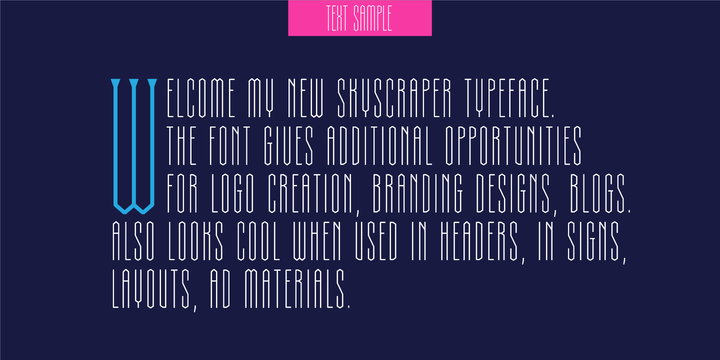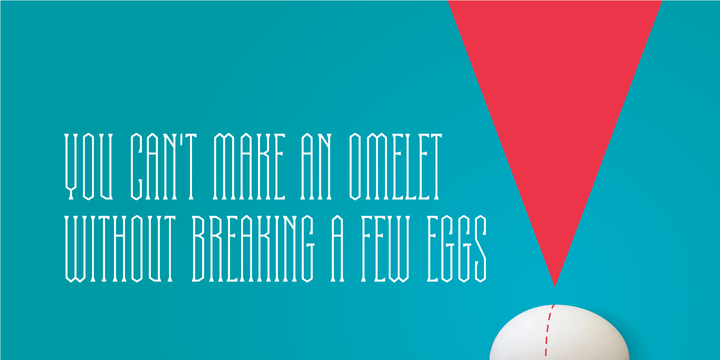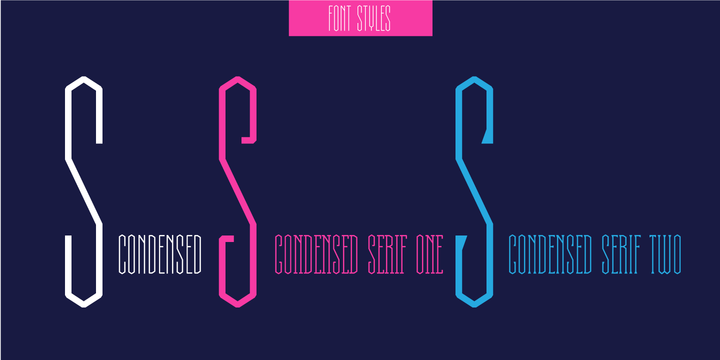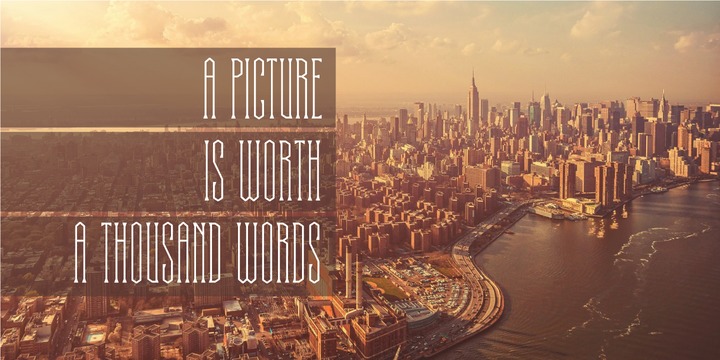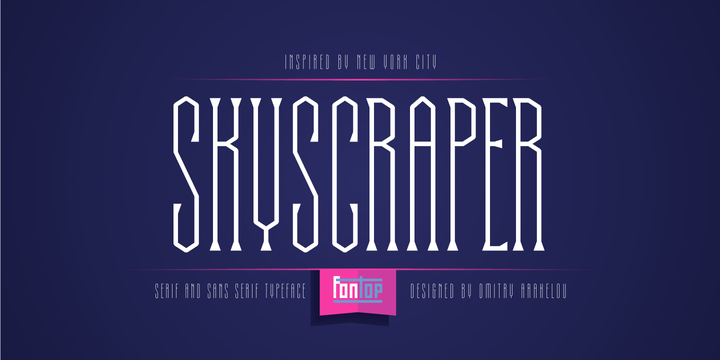
Skyscraper Font Family
Introducing the new serif and sans serif typeface SKYSCAPER. Inspired by NY city this elegant, simple, yet distinctive styles look great in posters, leaflets, books, magazines, presentations as well as logos and blog posts. The font also has two additional styles with different design of serifs.